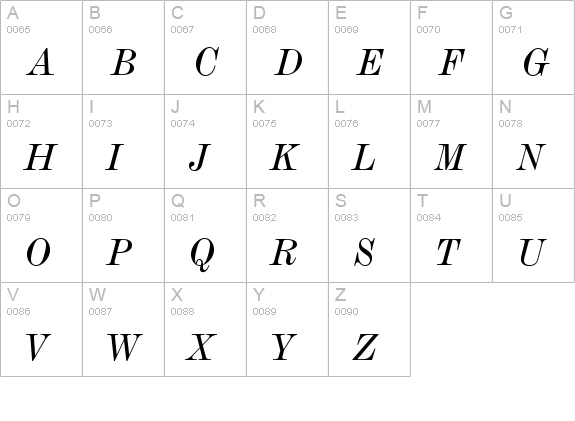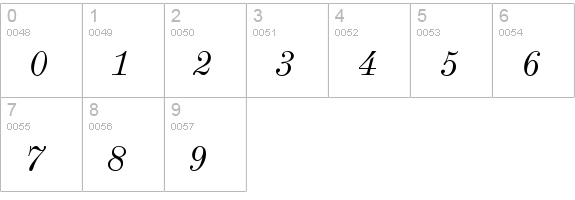
De Vinne Italic Text Font Details
De Vinne Italic Text is a distinctive, italic variant in the De typeface family \xE2\x80\x94 well suited to design and typography projects.
De Vinne Italic Text font is a beautifully designed typeface that exudes elegance and sophistication. With its graceful curves and delicate serifs, this font is perfect for adding a touch of refinement to any project. The italic style of De Vinne adds a sense of movement and fluidity, making it ideal for conveying a sense of grace and style. What sets De Vinne Italic Text font apart is not only its timeless design but also the fact that it is available for free download at FontsMarket.com. This means that you can easily access this stunning font without any cost, making it a valuable addition to your design toolkit. Overall, De Vinne Italic Text font is a versatile and stylish typeface that will elevate any project with its classic beauty and free availability for download. Add a touch of sophistication to your designs with this exquisite font today.